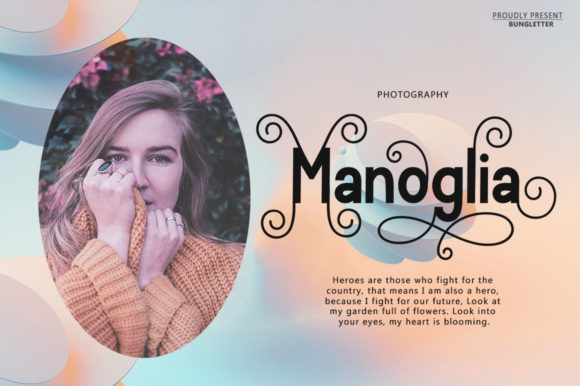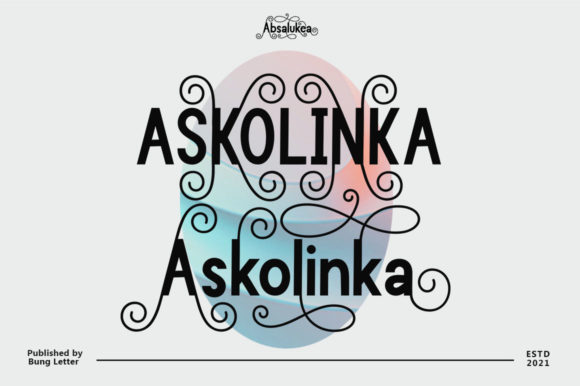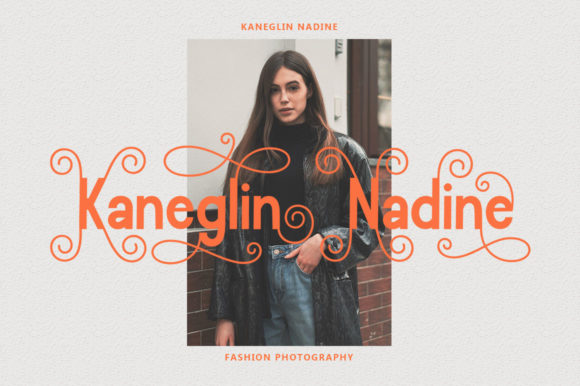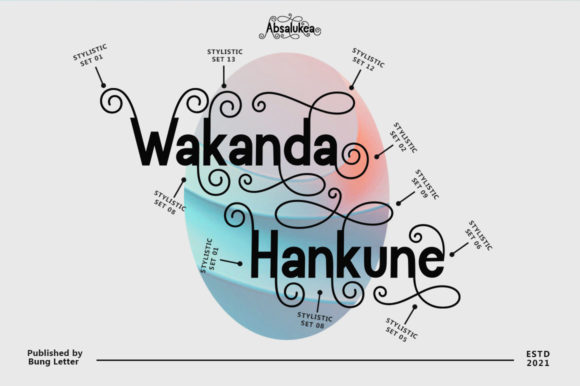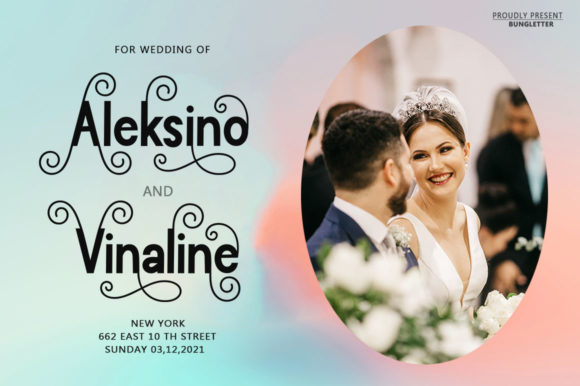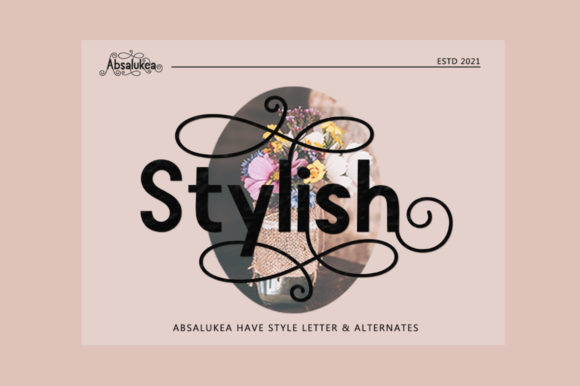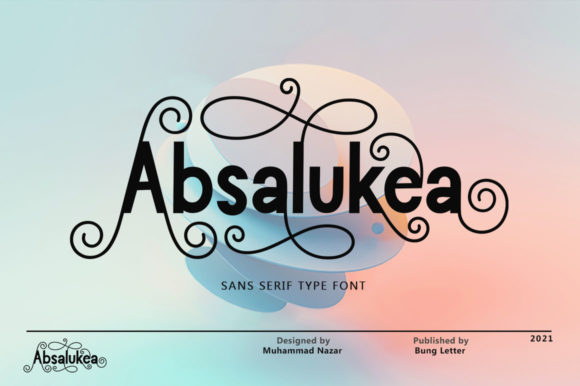
Introducing Absalukea Font: Elevate Your Designs with Elegance
In the world of typography, a font can make all the difference in transforming a design from ordinary to extraordinary. For designers and crafters seeking to add a touch of sophistication and uniqueness to their creations, the Absalukea Font is an exceptional choice. This elegant and uniquely lettered sans serif font has been gaining attention for its versatility, ease of use, and stunning visual appeal.
What Makes Absalukea Font Stand Out?
Absalukea Font is not just another addition to the vast sea of typefaces available today. It stands out for several reasons:
- Elegant and Unique Design: Absalukea boasts an elegant and uniquely lettered sans serif design. Its clean lines and modern aesthetic make it perfect for projects that demand a touch of sophistication.
- PUA Encoding: One of the key features of Absalukea Font is its PUA (Private Use Area) encoding. This means that users can access all glyphs and swashes easily, offering a wide range of creative possibilities without the complexity of navigating through multiple character sets.
- Versatility: Whether you’re working on a logo, a branding project, a website design, or crafting digital or print materials, Absalukea can be seamlessly integrated into various design contexts. Its versatility is one of its most significant advantages.
Designers and crafters are constantly on the lookout for fonts that can help their work stand out. Here’s how Absalukea Font can benefit:
- Time-Saving: With PUA encoding, designers can save time by having straightforward access to all the glyphs and swashes they need. This efficiency allows for more focus on the creative aspects of a project.
- Enhanced Creativity: The unique design and extensive features of Absalukea Font encourage experimentation and creativity. Designers can explore various combinations of glyphs and swashes to produce distinctive and eye-catching designs.
- Professional Outcomes: The elegant design of Absalukea ensures that the final output looks professional. This is particularly beneficial for designers who work with clients or for personal projects where making a good impression is crucial.
- Explore Glyphs and Swashes: Use the font’s PUA encoding to explore and insert different glyphs and swashes. This can add a personalized touch to your designs.
- Experiment and Create: Don’t hesitate to experiment with different sizes, colors, and combinations of glyphs and swashes. The unique features of Absalukea Font are designed to inspire creativity.
Absalukea Font is a remarkable addition to any designer’s or crafter’s toolkit. Its elegant sans serif design, combined with the ease of use provided by PUA encoding, makes it an excellent choice for those looking to elevate their designs. Whether you’re aiming to create stunning visual content, enhance your brand’s aesthetic, or simply explore new creative avenues, Absalukea Font is sure to impress. By incorporating this versatile and uniquely lettered font into your projects, you can confidently expect to see a significant impact on the overall quality and appeal of your work.